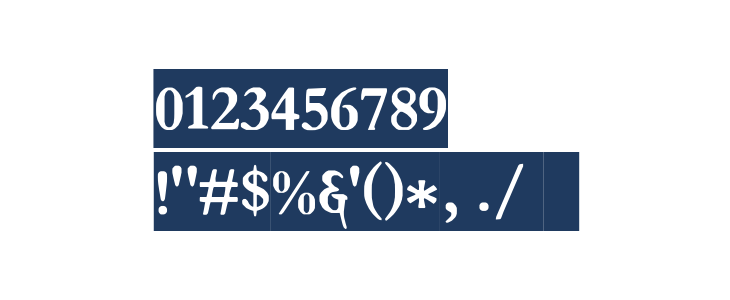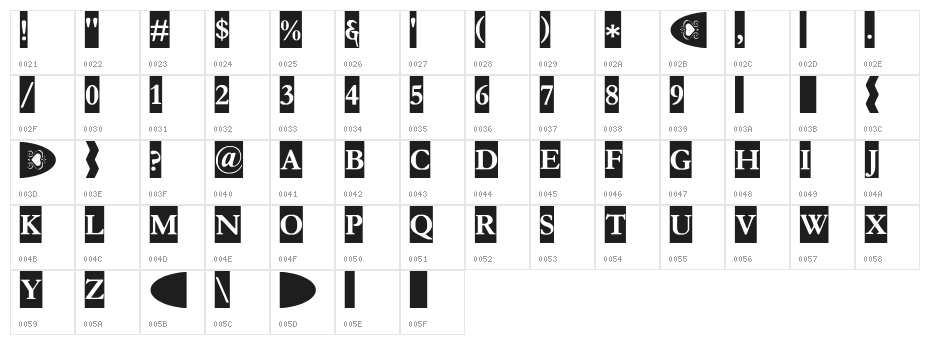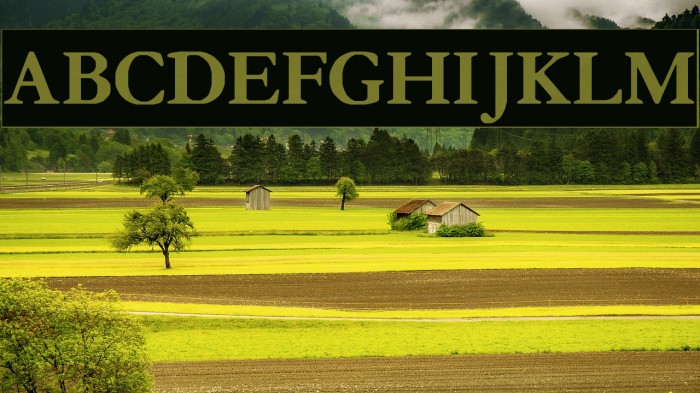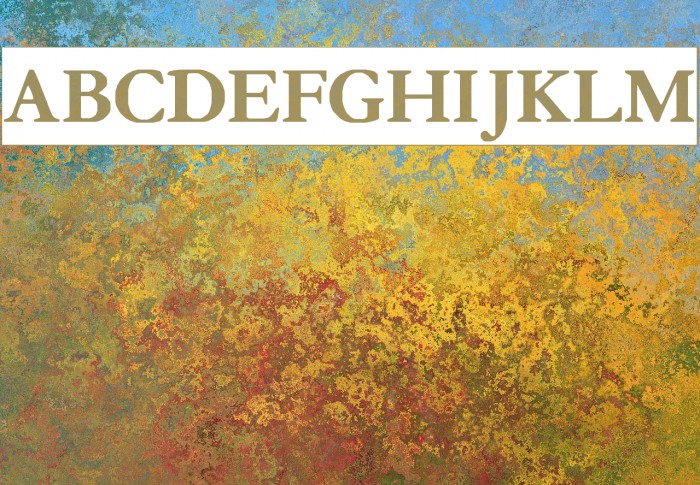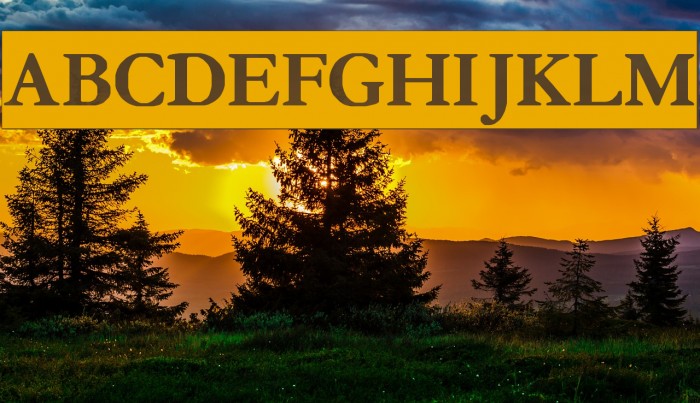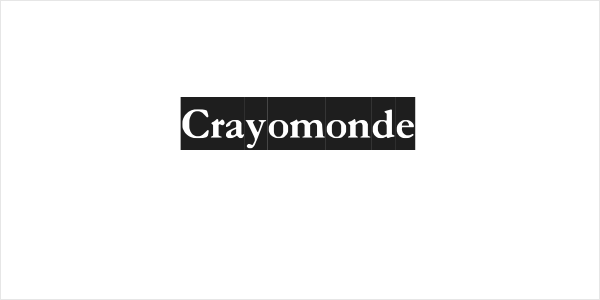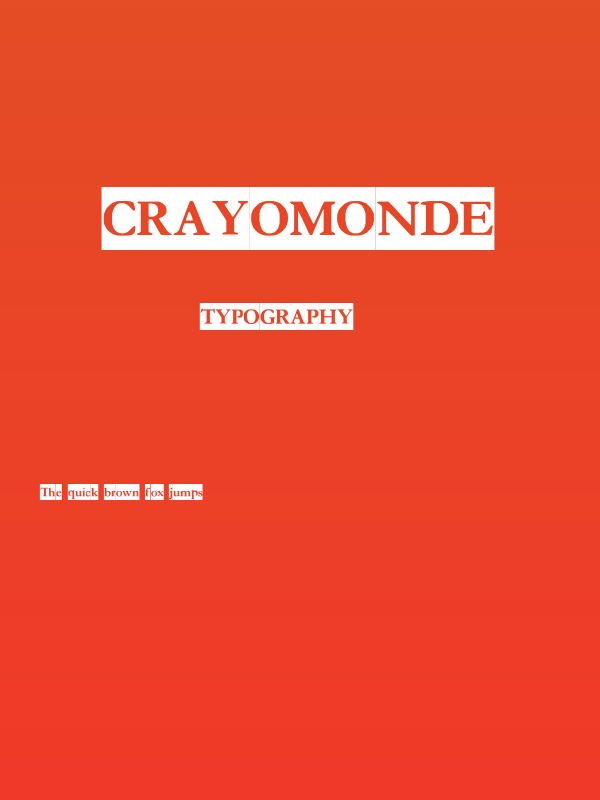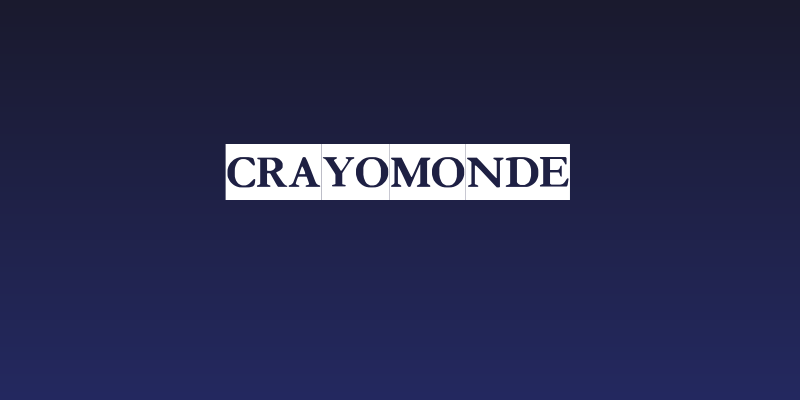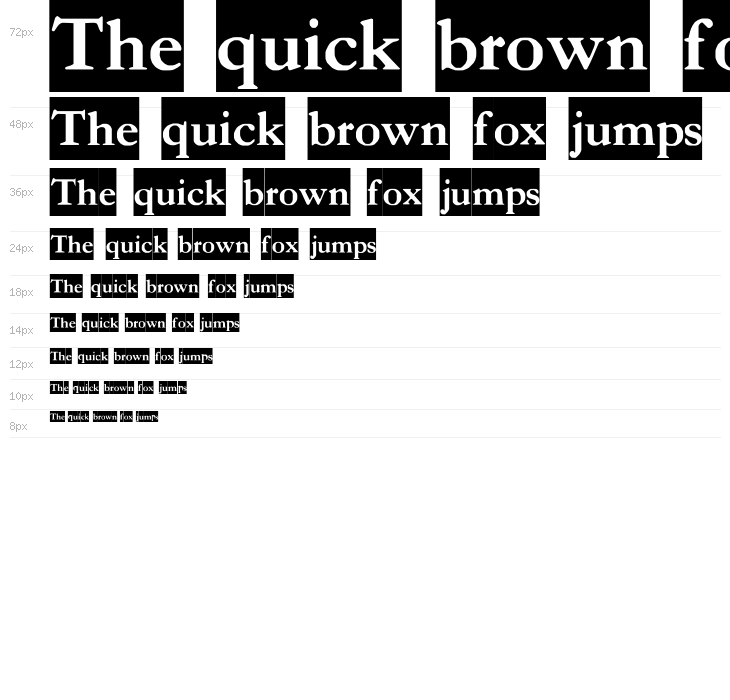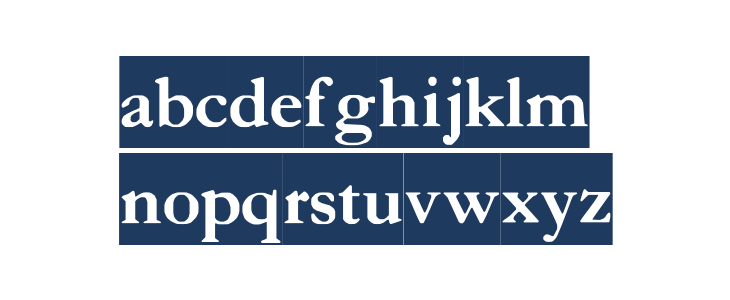
Crayomonde Font
Crayomonde Description
This font exhibits a classic serif style with pronounced, elegant serifs that add a touch of sophistication to each character. The uppercase letters are bold and commanding, while the lowercase letters maintain a graceful balance with slightly rounded edges. The numerals are clear and consistent, ensuring readability. Special characters are well-integrated, maintaining the overall aesthetic. The font's design is versatile, suitable for both formal and creative applications, offering a timeless appeal that can enhance a variety of projects.
Overall StyleClassic
Proposed ProjectsIdeal for book covers, editorial design, branding, and formal invitations.